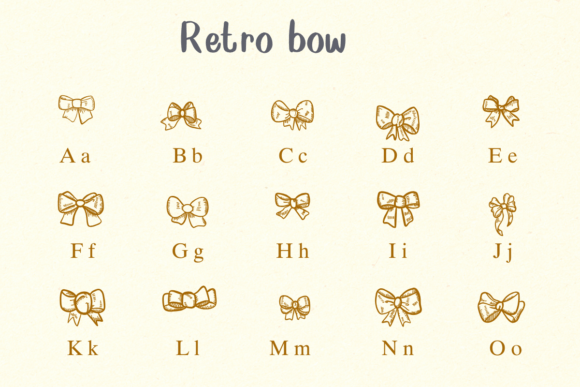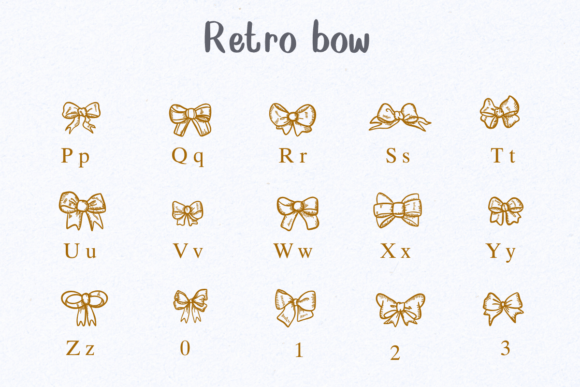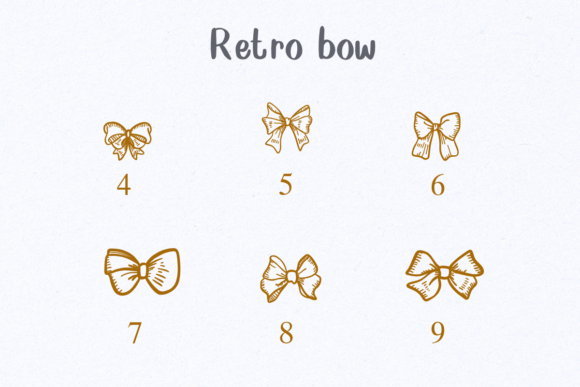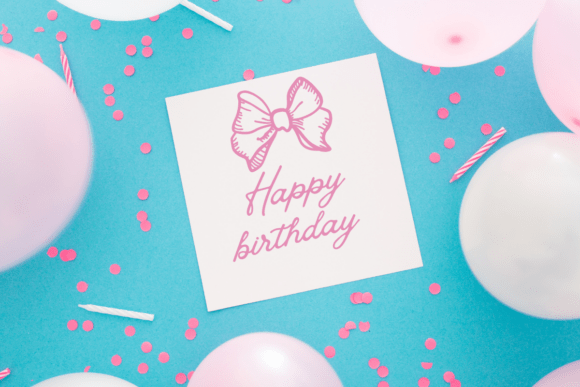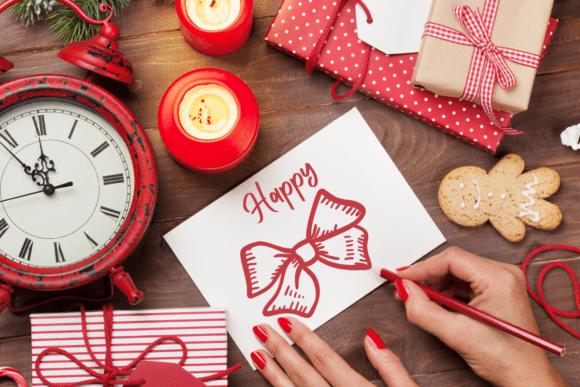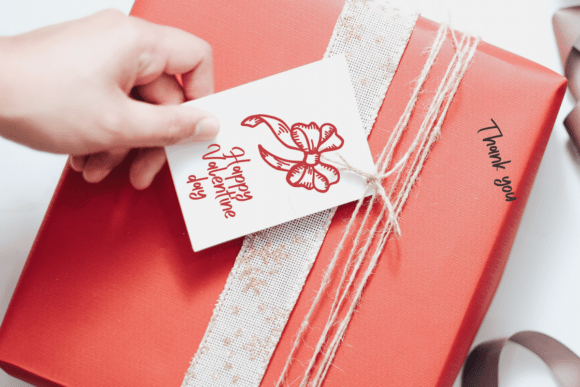
Introduction to Retro Bow Font
Have you ever been working on a design project and wished you had the perfect embellishment to elevate it from ordinary to extraordinary? That’s where the Retro Bow Font comes in – a delightful collection of vintage-inspired bow illustrations that add a touch of nostalgia and whimsy to any creative project.
As a designer, you know the importance of having a high-quality design resource at your fingertips. The Retro Bow Font is just that – a free download featuring over 30 beautifully crafted glyphs, each with a transparent background to ensure seamless integration into your designs. Whether you’re creating stationery, packaging, logos, or digital art, this charming font is sure to bring a smile to your clients’ faces.
Key Features of Retro Bow Font
- Unique, high-quality design ideal for creative projects and vintage-inspired themes.
- Designed with a distressed, hand-drawn aesthetic, giving it a charming, retro feel.
- Perfect for use in a variety of creative projects, including invitations, posters, and digital artwork.
Honest Review: Retro Bow Font
I recently had the chance to work with the Retro Bow Font, and I must say it’s been a delightful experience. This font is a treasure trove of creativity, perfect for any design project that requires a touch of nostalgia and playfulness.
- ✨ High quality design: The Retro Bow Font is meticulously crafted with attention to detail, resulting in a crisp and clean look that’s perfect for any design project.
- ⚠️ Limited character set: The font’s character set is relatively limited, which may be a drawback for designers who need a wide range of characters for their project.
- ⚠️ Not suitable for all projects: The font’s playful and retro style may not be suitable for all types of projects, such as formal or corporate designs.
Overall, I’m thoroughly impressed with the Retro Bow Font. It’s a fantastic design resource that’s perfect for creative projects that require a touch of whimsy and fun. Whether you’re a professional designer or a hobbyist, this font is definitely worth checking out.
Retro Bow Font
The Retro Bow Font is a unique and creative design resource perfect for adding a touch of nostalgia to your high-quality projects. With its transparent background, this font is easy to customize and integrate into various design applications.
The Retro Bow Font is perfect for a variety of creative projects, including:
- Designing vintage-inspired graphics and logos
- Creating custom invitations and party decorations
- Adding a touch of nostalgia to social media graphics and presentations